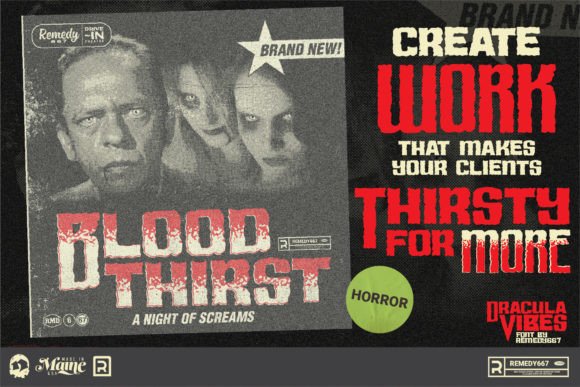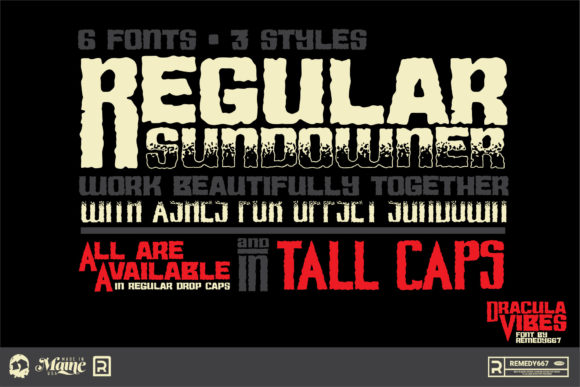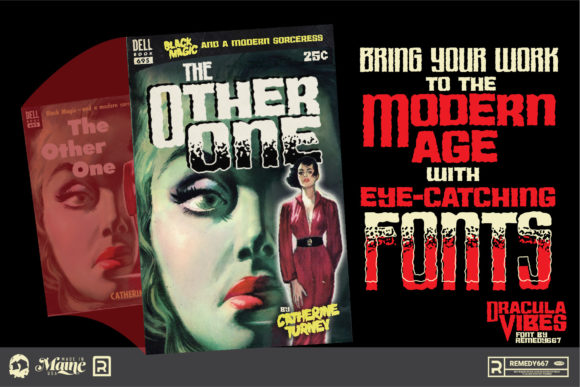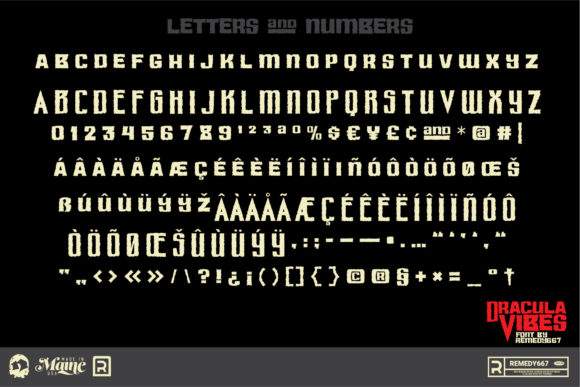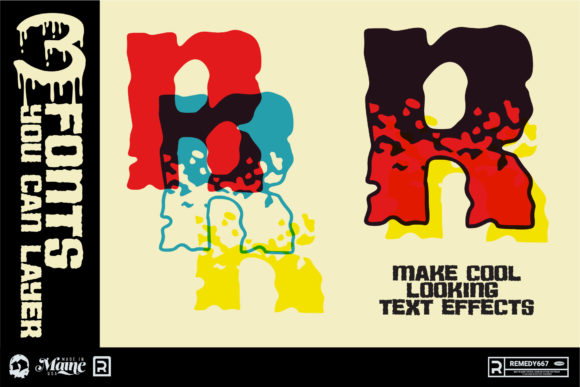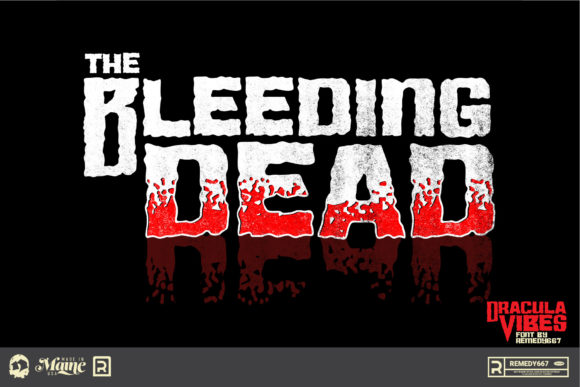
Introduction to Dracula Vibes Font
Do you remember that moment when you’re working on a creative project and you need that one specific font to bring it all together? The kind of font that screams ‘I’m a gothic masterpiece’ and leaves a lasting impression on your audience? For designers, that moment is what makes all the hard work worth it.
Well, we’ve got you covered. Introducing the Dracula Vibes Font, a game-changing, high-quality design resource that’s perfect for any horror-themed project. With its unique gothic style and layered texture, this font is sure to transport your audience to a world of darkness and mystery.
Key Features of Dracula Vibes Font
- Unique Gothic-inspired design for a creative project, adding a mysterious touch.
- Designed at a large size (2048×2048 pixels) for optimal resolution and clarity.
- Perfect for creating spooky, horror-themed designs, or for adding a dark touch to your creative project.
Honest Review: Dracula Vibes Font
As a designer, I’m always on the lookout for unique and high-quality design resources to elevate my creative projects. Recently, I stumbled upon the Dracula Vibes Font, and I’m excited to share my honest review with you.
- ✨ The font’s bold and mysterious aesthetic is perfect for creating a spooky or gothic atmosphere in your design projects.
- ⚠️ The font is a bit limited in its character set, which may not be suitable for long-form text projects.
- ⚠️ The font’s bold style can be overwhelming in some contexts, so be sure to use it sparingly.
Overall, I’m impressed with the Dracula Vibes Font’s unique style and versatility. While it may have some limitations, it’s a valuable addition to any designer’s toolkit. If you’re looking for a high-quality design resource to add some mystery to your creative projects, I highly recommend giving the Dracula Vibes Font a try.
How to Use Dracula Vibes Font
Experiment with different font sizes and colors to create a unique and eye-catching design. Use the Dracula Vibes Font in combination with other design elements, such as images and graphics, to add depth and interest to your project. Consider using the font in a bold or italic style to add emphasis to your text.
The Dracula Vibes Font is perfect for use in creative projects, such as graphic design, typography, and branding. It can also be used in educational and business settings to add a touch of sophistication to presentations and documents. With its high-quality design and transparent background, the Dracula Vibes Font is an excellent choice for any design project that requires a unique and eye-catching font.